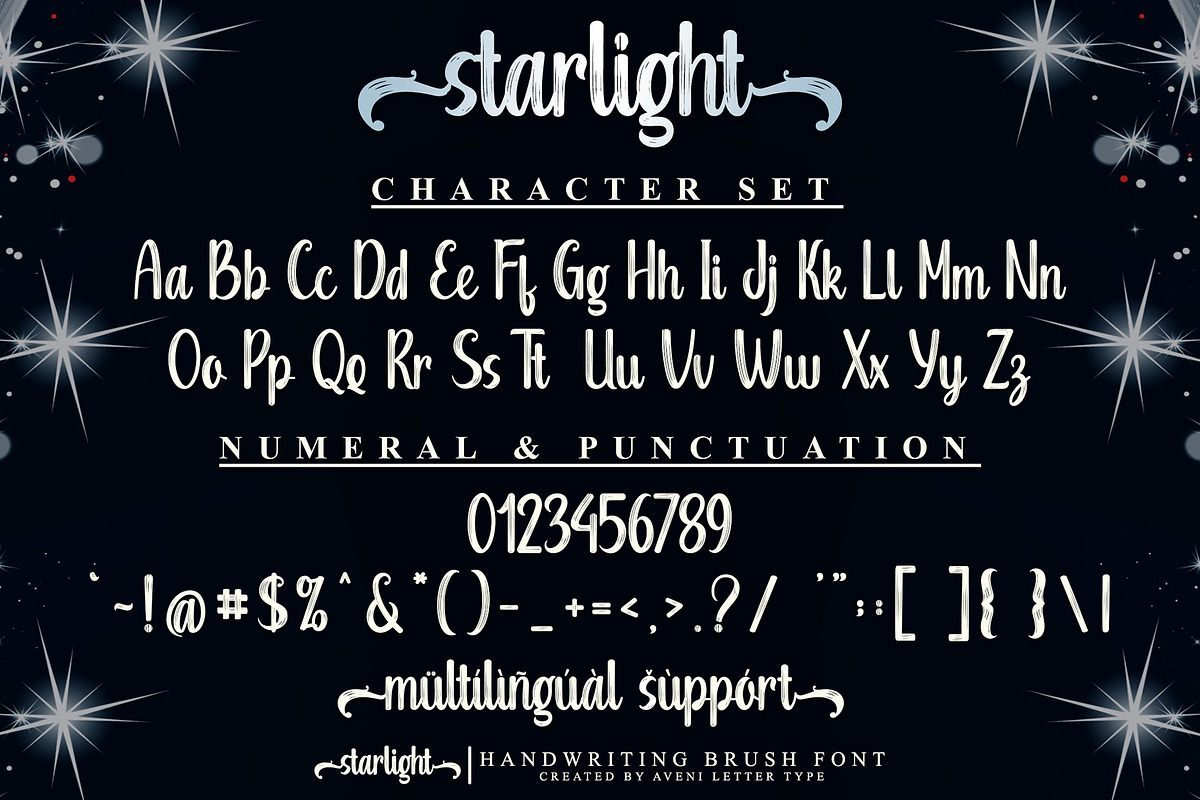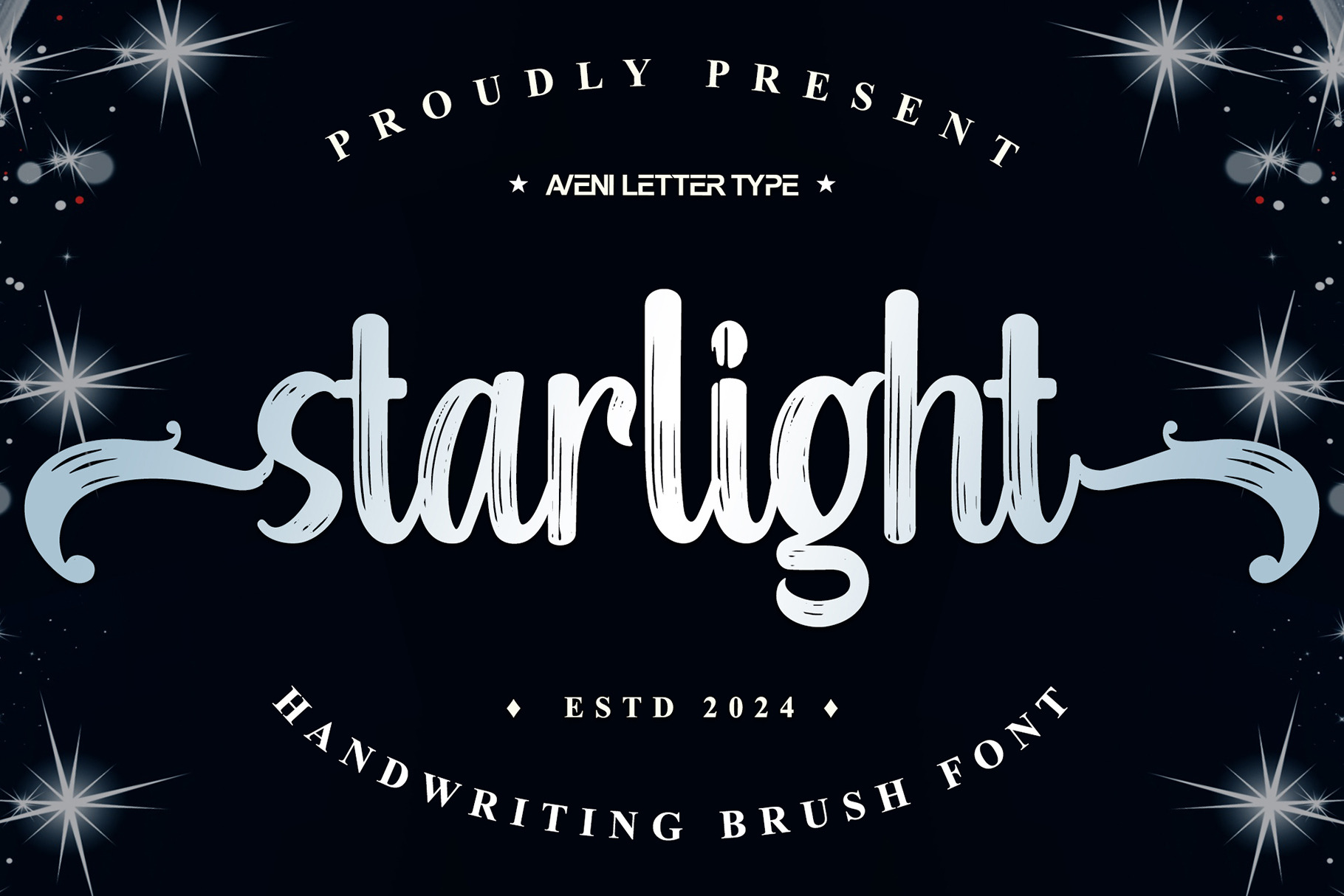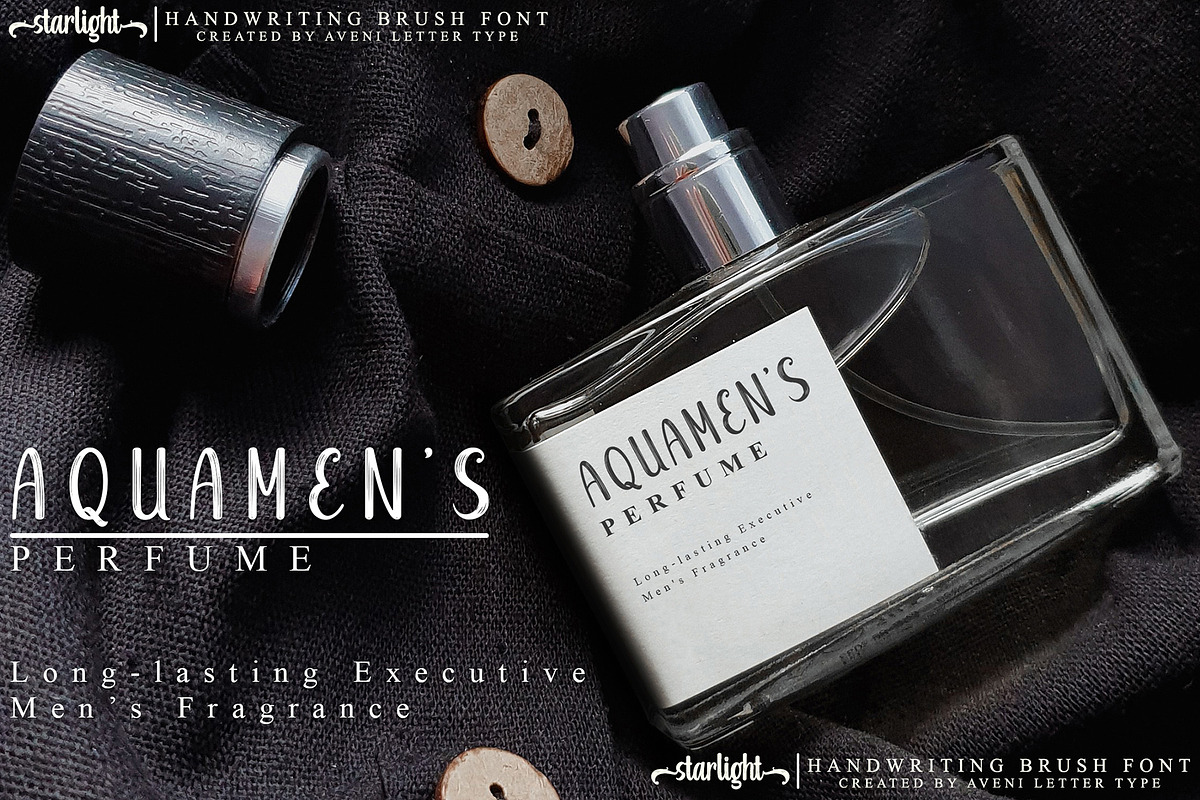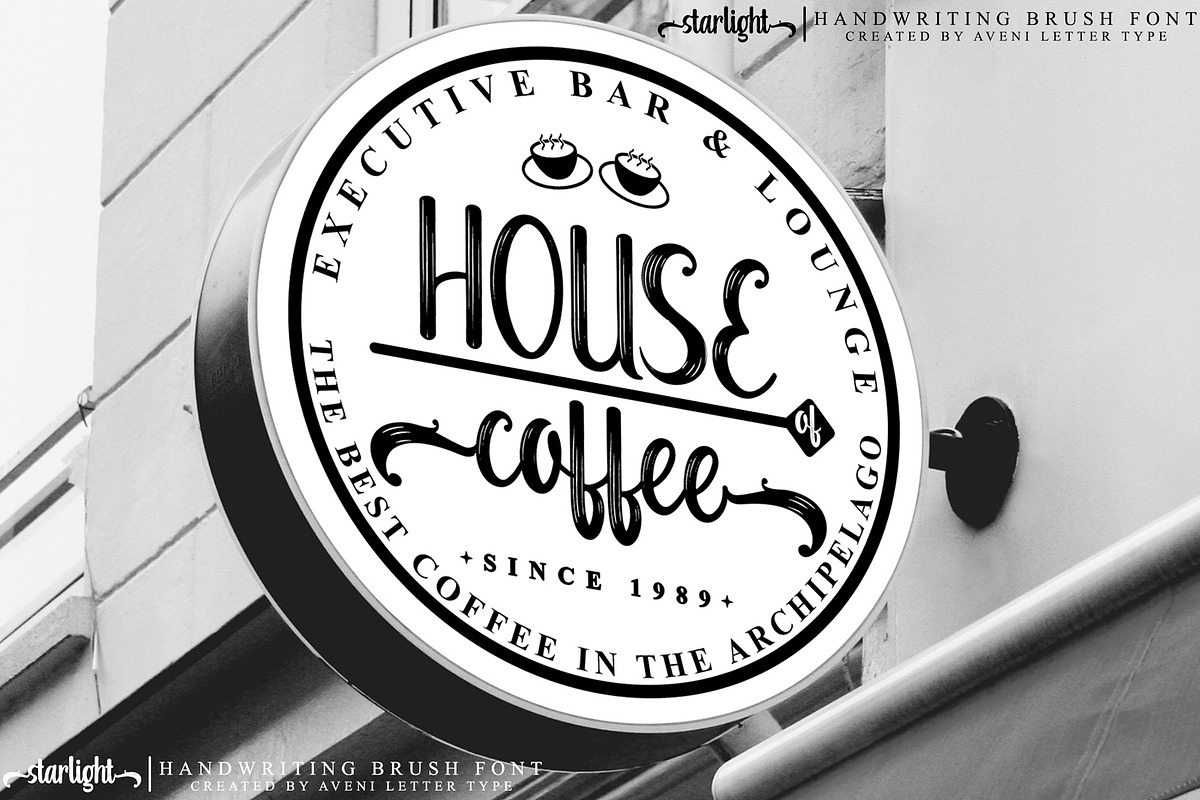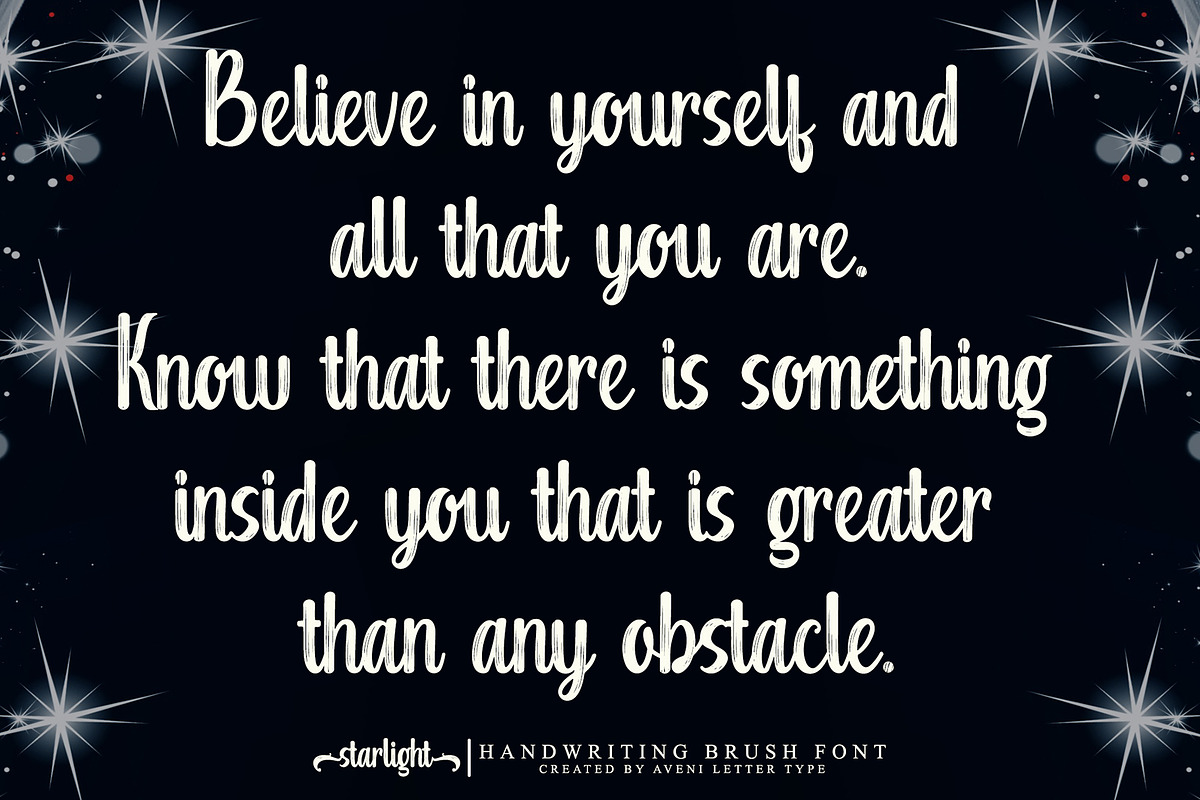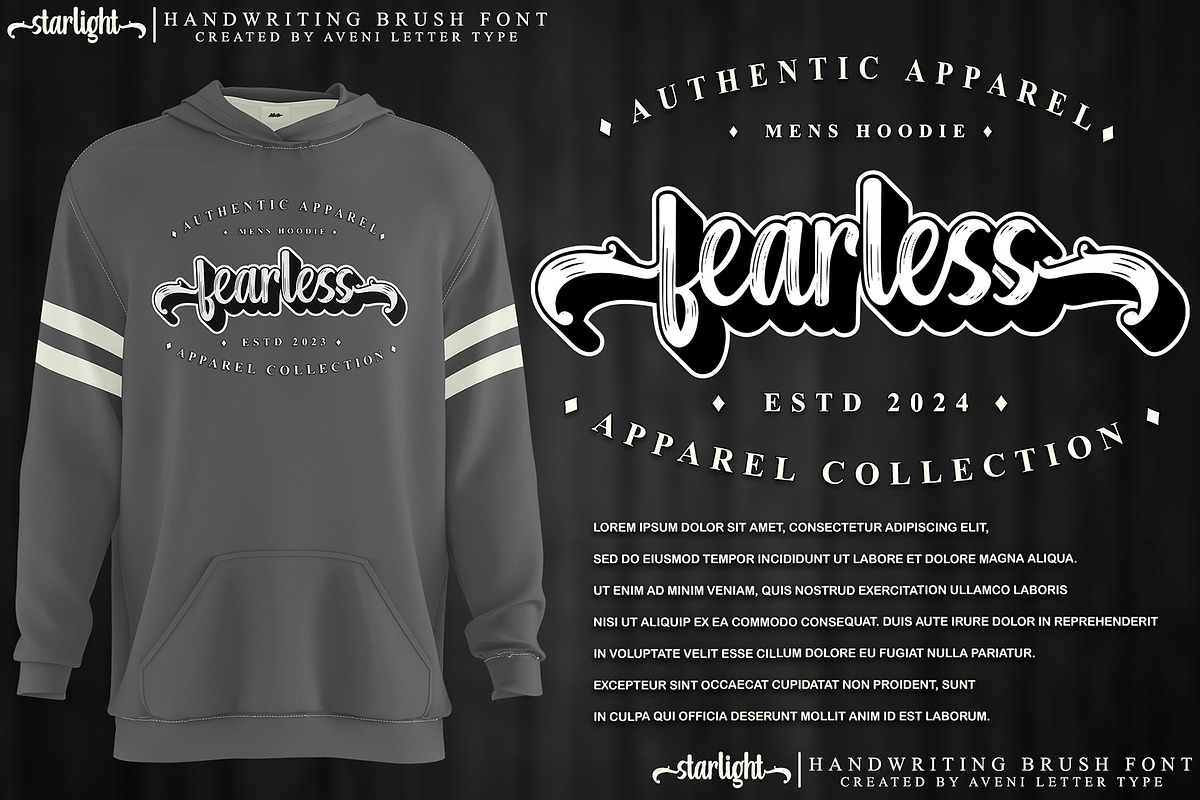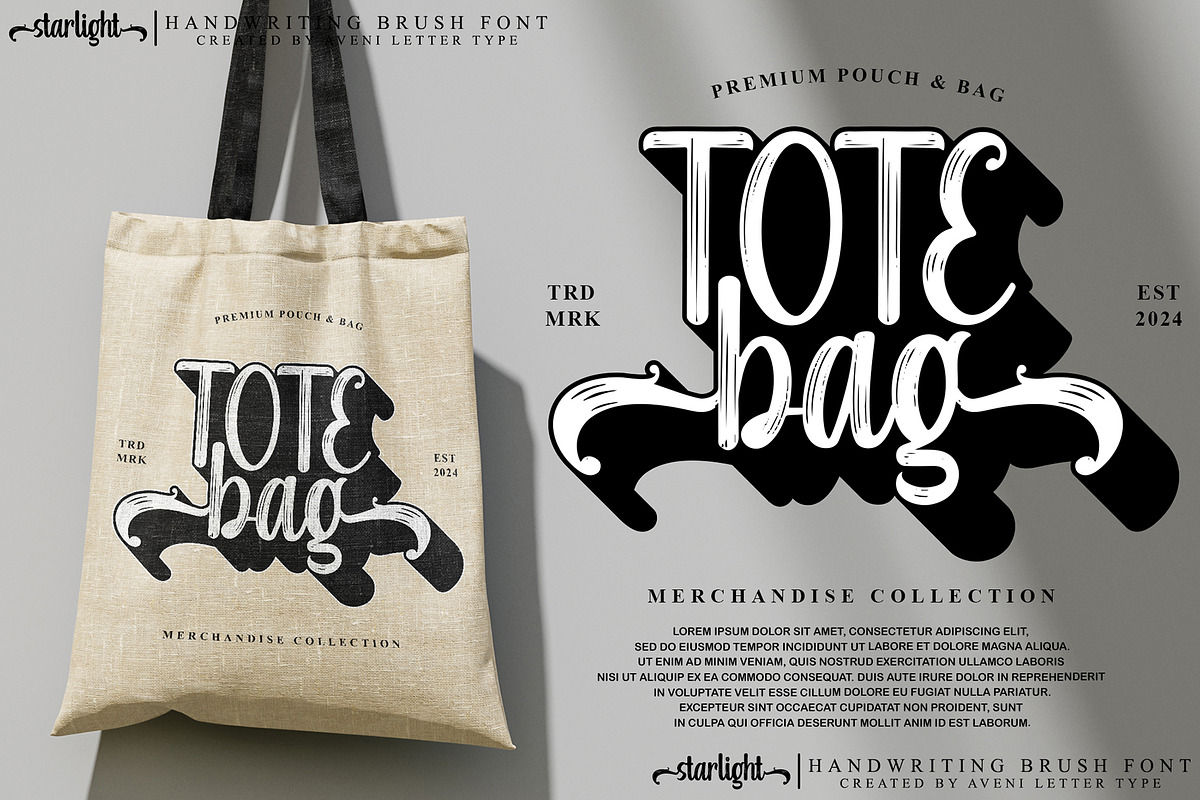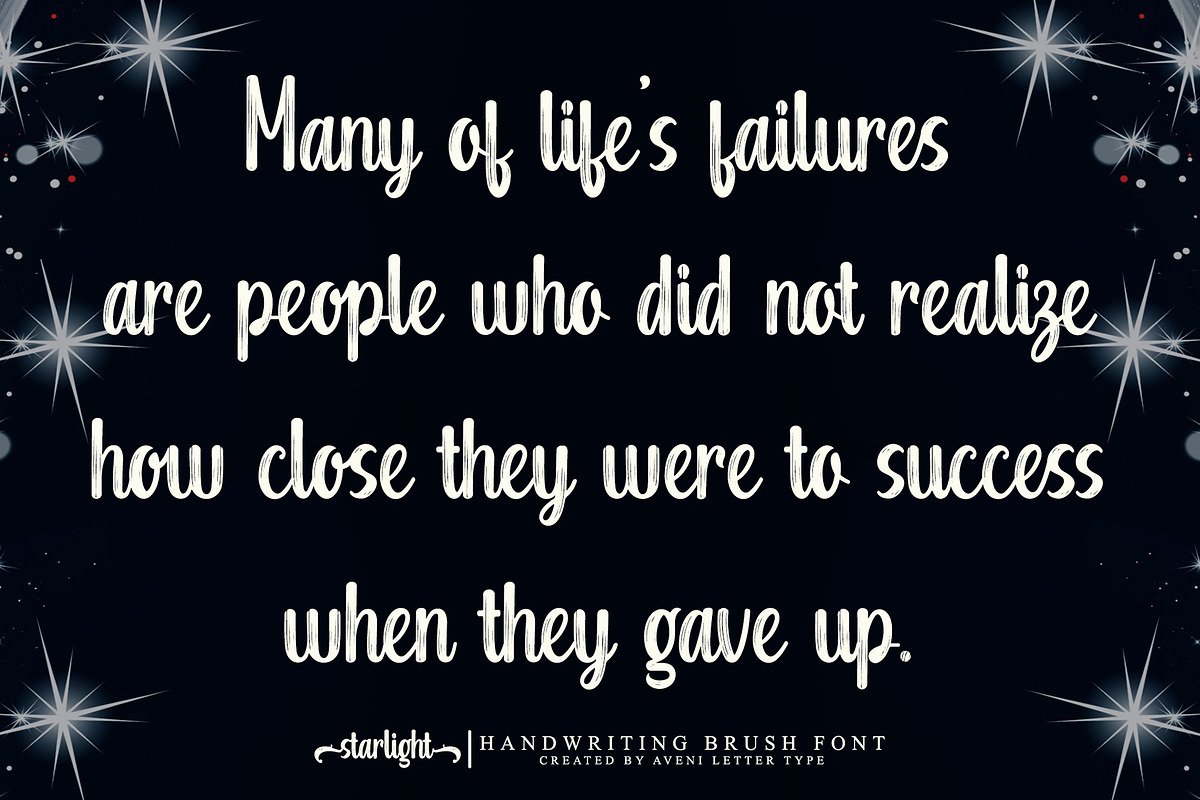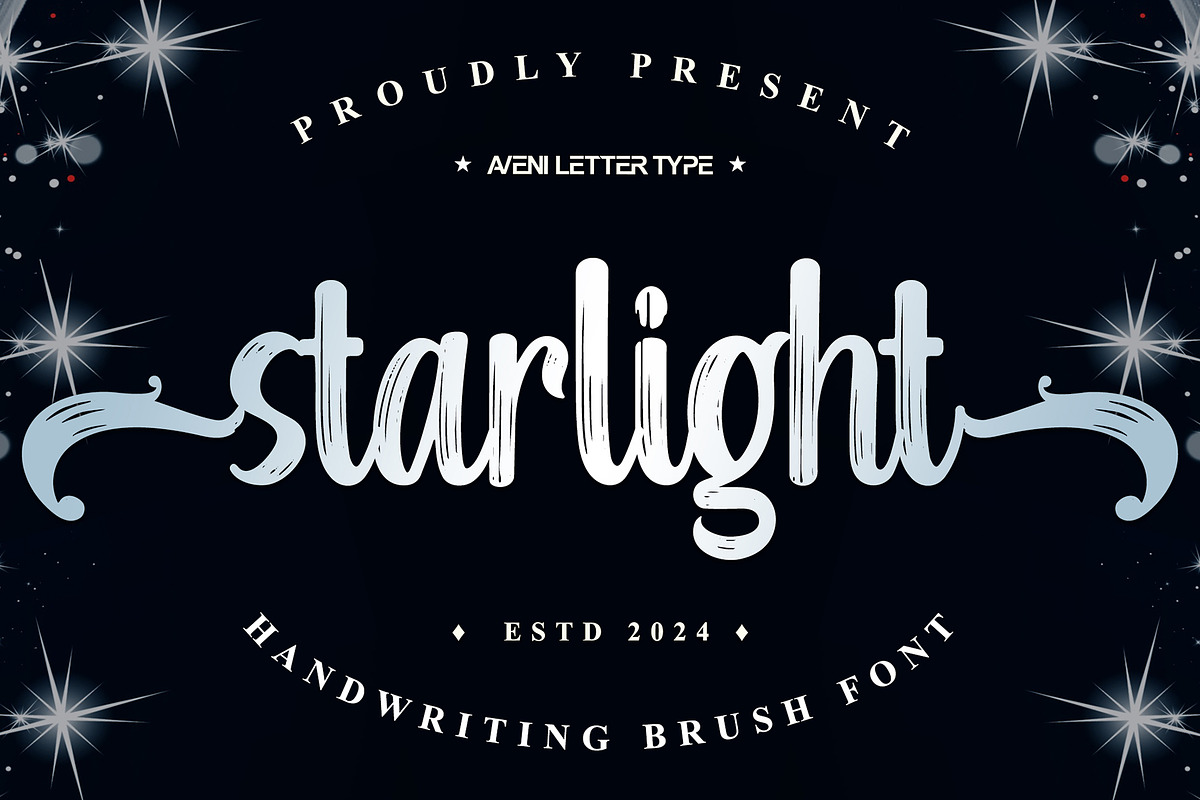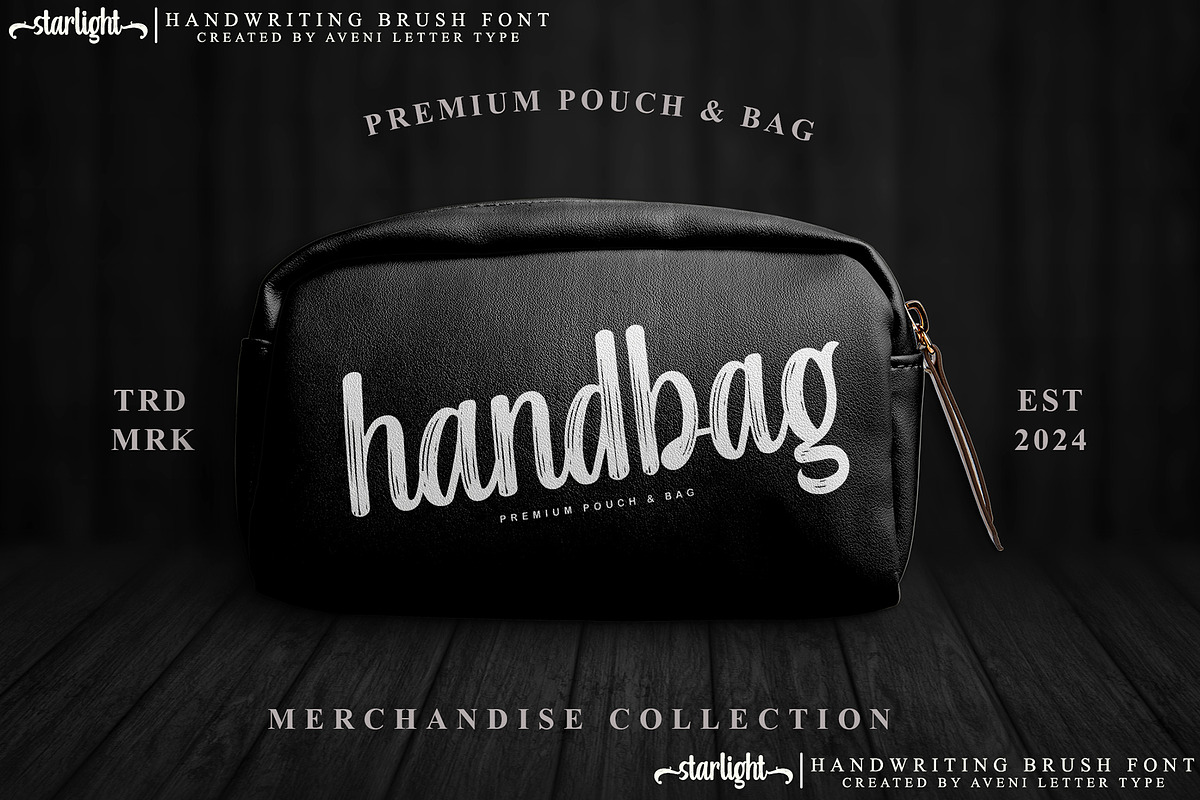
Starlight | Handwriting Brush Font
Starlight is a natural handwritten font that uses a brush and is kerned very neatly, resulting in quality handwriting. This font is equipped with many ligatures and alternates (PUA encoded) so that it can simplify and beautify the project you are working on with this font. This font is very suitable for use in various large projects, such as using logotypes, product branding, greeting cards, business cards, letterheads, shop names, company names, wedding invitation cards, product packaging for your business, clothing branding, crafting, and many more.
Font Feature :
- Ligatures, and Multilingual